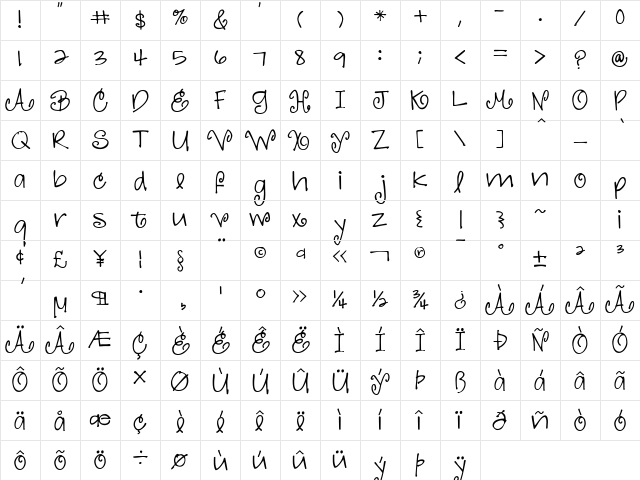
Complete JustineOLD Regular glyph index. Displaying only characters natively supported by JustineOLD Regular font.
JustineOLD is a composed and adaptable typeface that performs quietly and consistently across a wide range of design contexts.
Who designed the JustineOLD Regular font?
This font was published by Justine-Regular Designers: Rae Kaiser & Justine Childs (c) Outside the Line Design. Check the technical specs section for copyright and designer details.